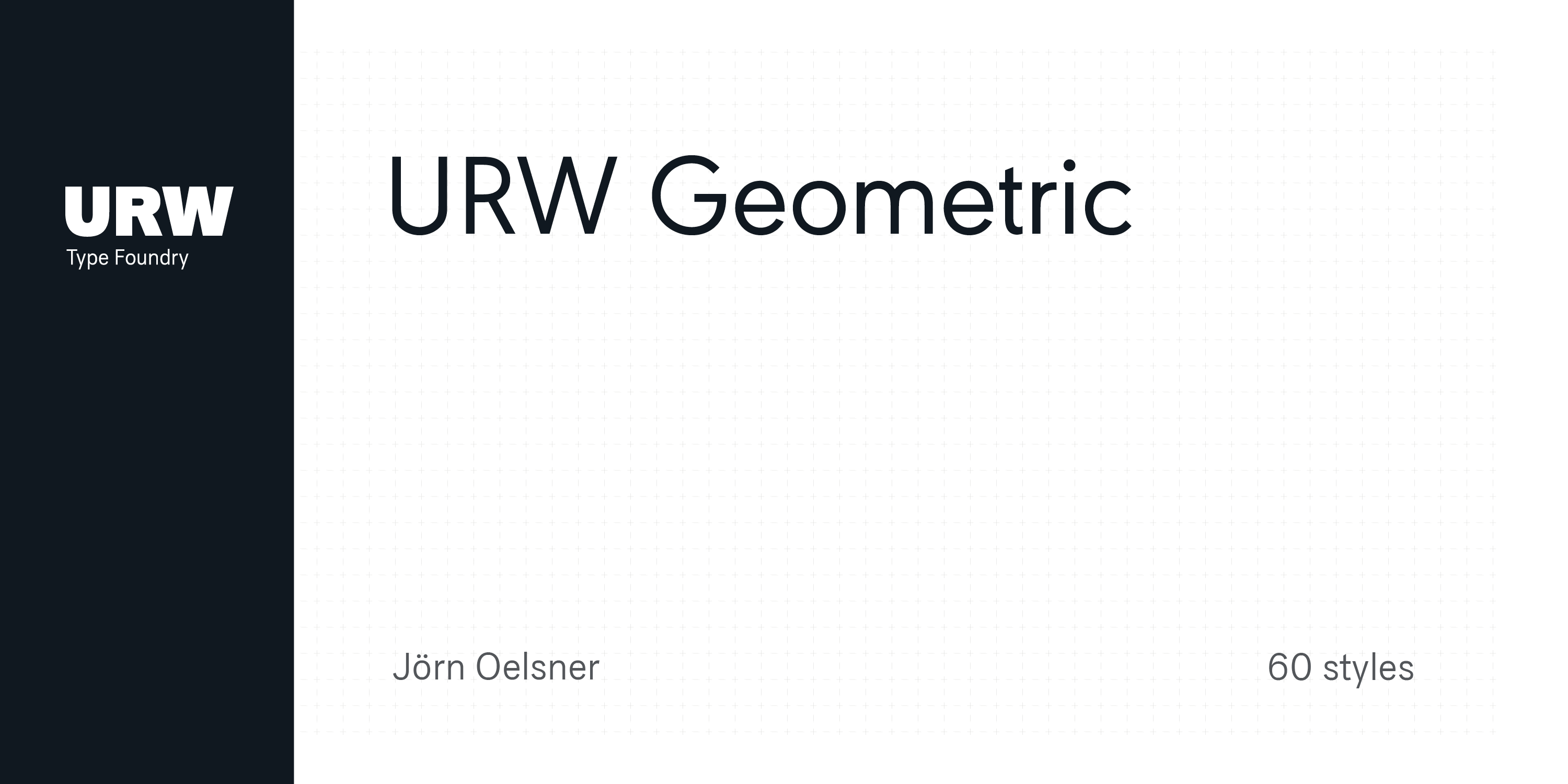
URW Geometric Font is perfect for modern branding projects, corporate presentations, minimalist logos, website headers, marketing materials, business cards, and contemporary poster designs.
What makes URW Geometric Font exciting is its perfect balance between geometric precision and readability, offering clean lines that work exceptionally well in both digital and print media while maintaining professional elegance.
The URW Geometric Font family includes multiple weights and styles: Light, Regular, Medium, Bold, and Extra Bold variants, each offering excellent versatility for different design needs and hierarchy requirements.
URW Geometric Font Free Download represents the pinnacle of contemporary typography design. This exceptional typeface combines mathematical precision with artistic flair, making it an ideal choice for designers who demand both functionality and aesthetic appeal. The font's clean, geometric structure provides excellent readability across all media platforms while maintaining a sophisticated appearance that elevates any design project.
Professional designers consistently choose URW Geometric Font for its remarkable versatility and timeless appeal. Whether you're working on corporate identity systems, editorial layouts, or digital interfaces, this font delivers consistent performance and visual impact. The geometric foundation of the typeface ensures that text remains crisp and legible at any size, from large display headlines to small body text applications.
The careful attention to detail in URW Geometric Font is evident in its letter spacing, character proportions, and overall rhythm. Each character has been meticulously crafted to work harmoniously with others, creating smooth text flow that enhances reading experience. This makes it particularly suitable for extended reading materials, technical documentation, and user interface design where clarity is paramount.
Modern businesses and creative agencies frequently incorporate URW Geometric Font into their brand guidelines because of its contemporary feel and professional appearance. The font's neutral yet distinctive character allows it to complement various design styles without overwhelming the overall aesthetic, making it a reliable choice for long-term branding strategies and evolving design requirements.